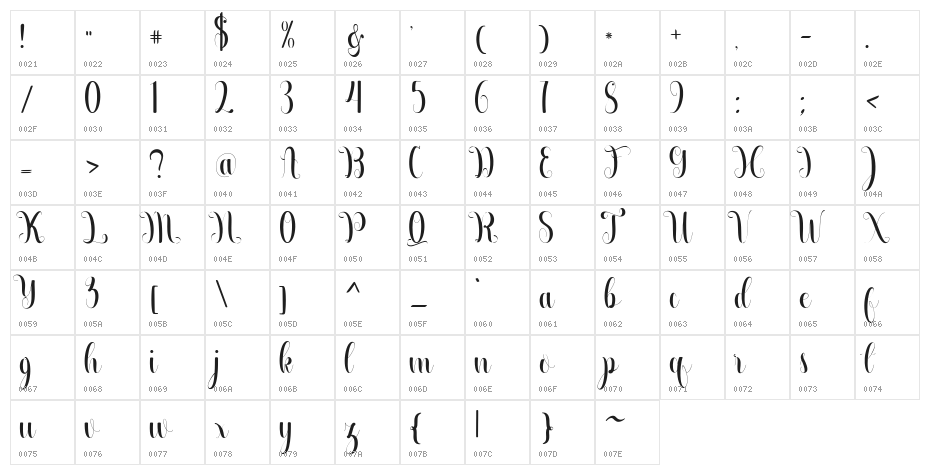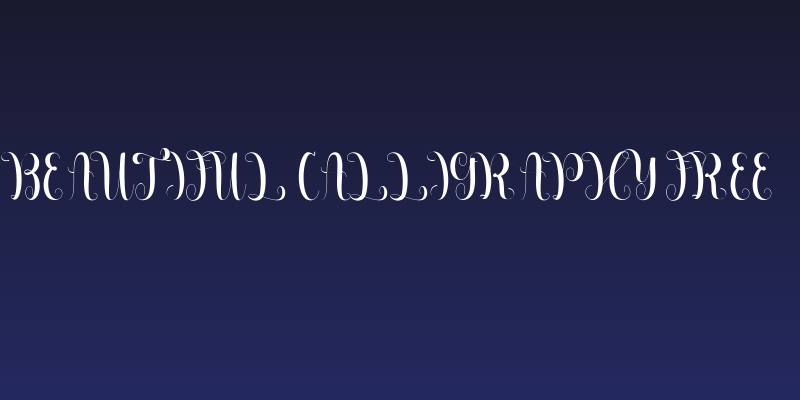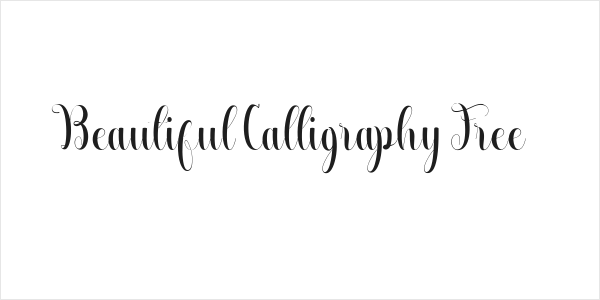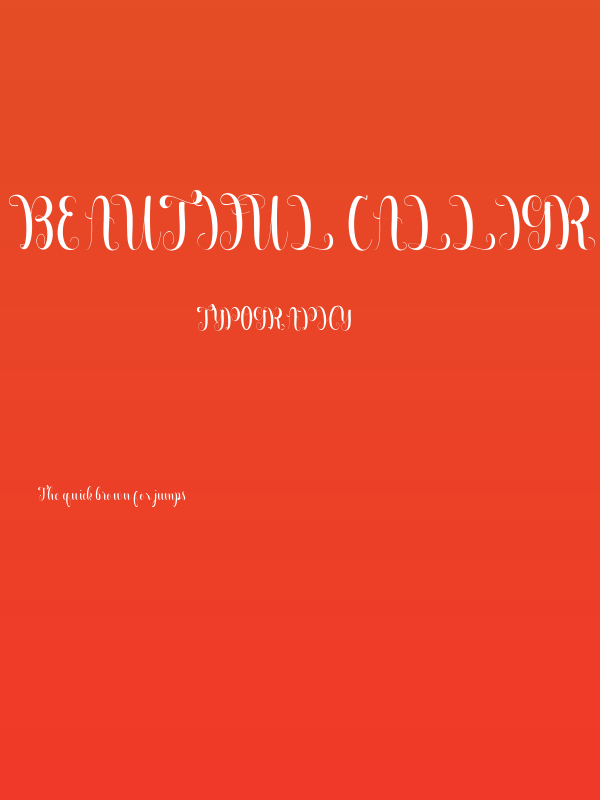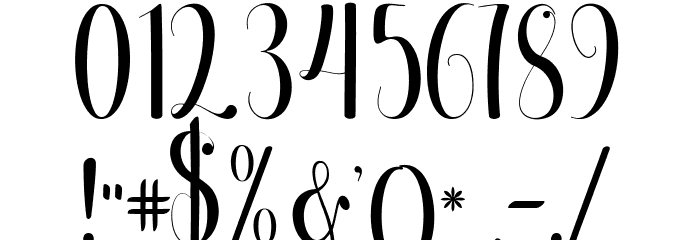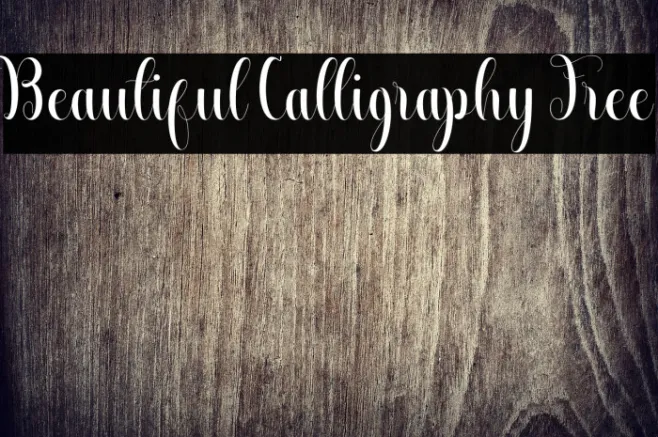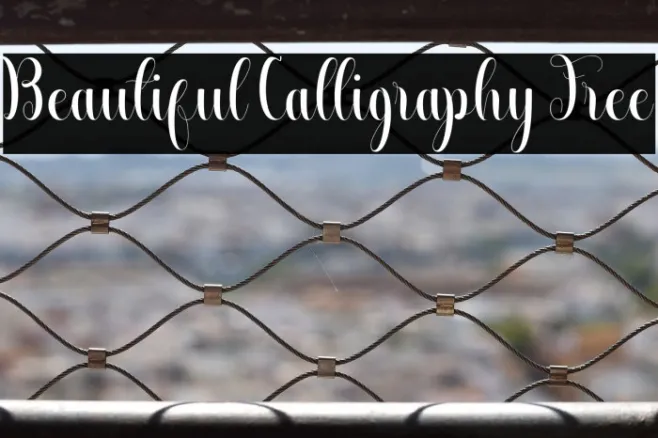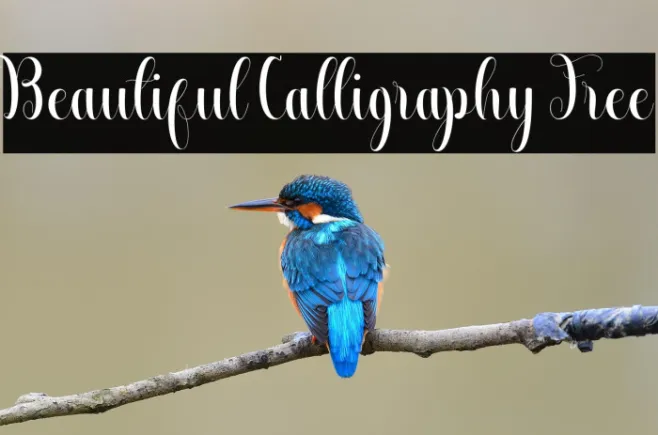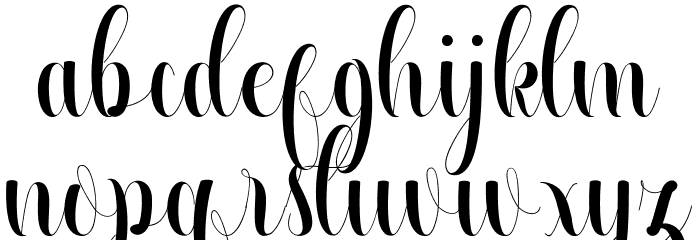
Beautiful Calligraphy Free Font
Beautiful Calligraphy Free Description
This font embodies an elegant and sophisticated calligraphic style, characterized by its flowing, cursive strokes and intricate swirls. The uppercase letters are adorned with elaborate flourishes, giving them a sense of grandeur and artistic flair. The lowercase letters maintain a consistent cursive form, with smooth connections between characters, enhancing the fluidity of the text. Numbers and special characters are designed with the same attention to detail, ensuring a cohesive look across all elements. The overall appearance is both decorative and refined, making it suitable for projects that require a touch of elegance and style.
| Proposed Projects | Ideal for wedding invitations, greeting cards, branding, and any project that requires a sophisticated and artistic touch. |